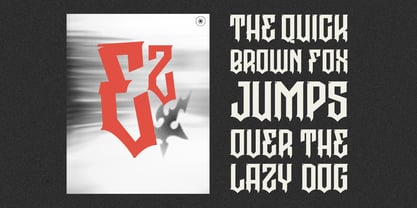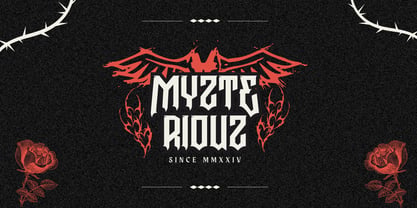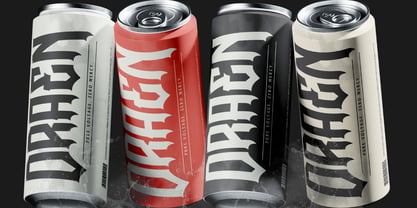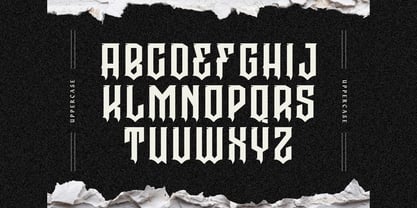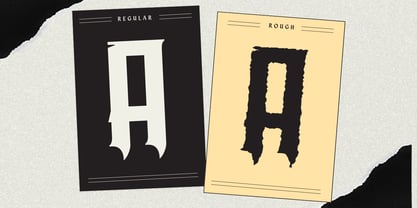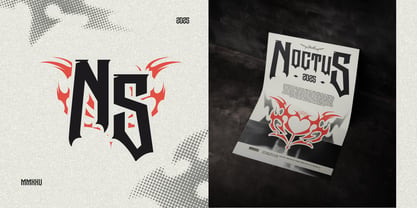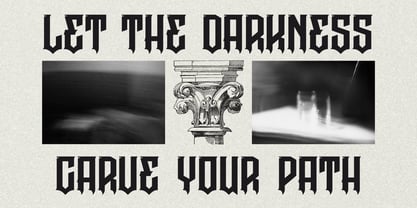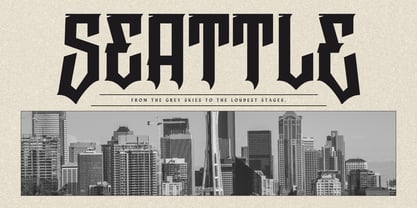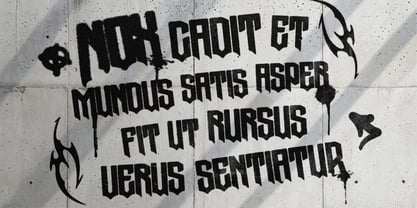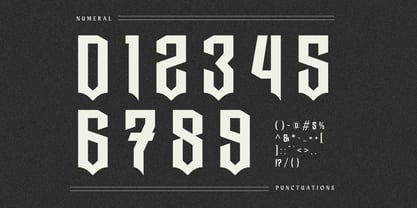
Graen Metal
by Nirmana Visual
The Graen Metal Font Family was designed by Sigit Dwipa and published by Nirmana Visual. Graen Metal contains 2 styles and family package options. More about this family
Graen Metal is a bold and striking typeface crafted for impactful branding. Available in Regular and Rough styles, it blends sharp edges with a metallic attitude, perfect for logos, posters, apparel, and modern merchandise. Its strong presence delivers an industrial yet stylish feel, making every design stand out with power, precision, and a unique metal-inspired aesthetic.
Designers: Sigit Dwipa
Foundry: Nirmana Visual